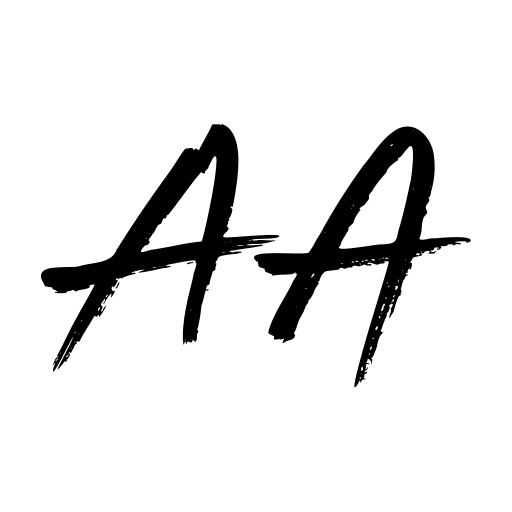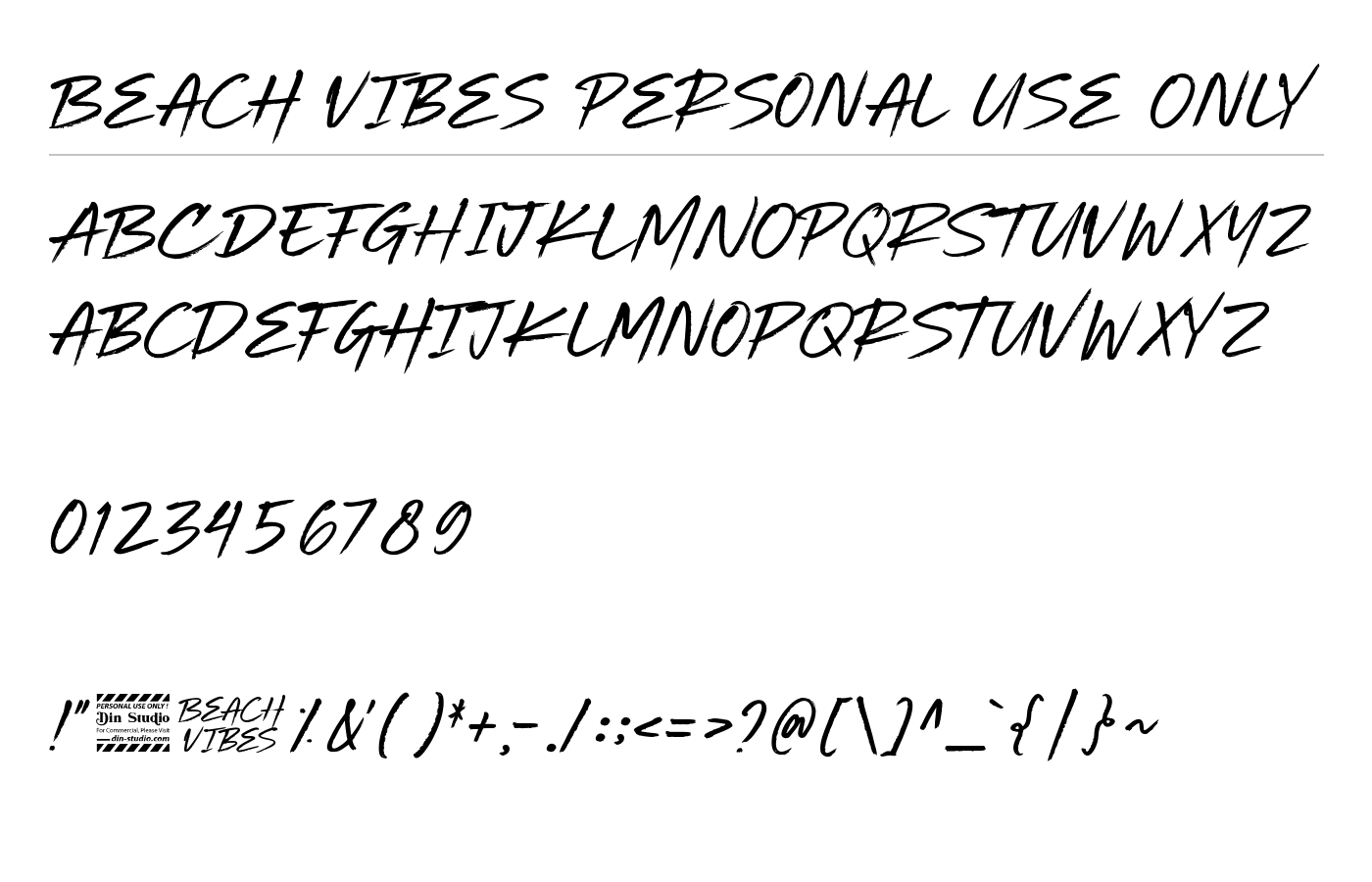
Beach Vibes Personal Use Only is a casual, handwritten script font with a lively and energetic style. It features irregular, flowing strokes that give it an authentic, hand-drawn feel, making it perfect for designs that want to evoke a relaxed, fun, and approachable vibe. This font works well for beach-themed projects, informal branding, posters, and social media graphics where a personal touch is desired.
Beach Vibes Personal Use Only Font
About Beach Vibes Personal Use Only Font
| Font family | Beach Vibes Personal Use Only Font |